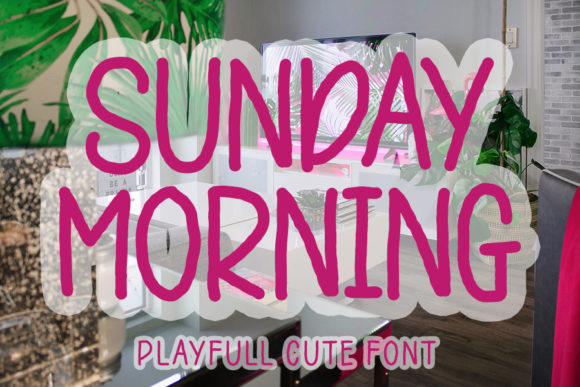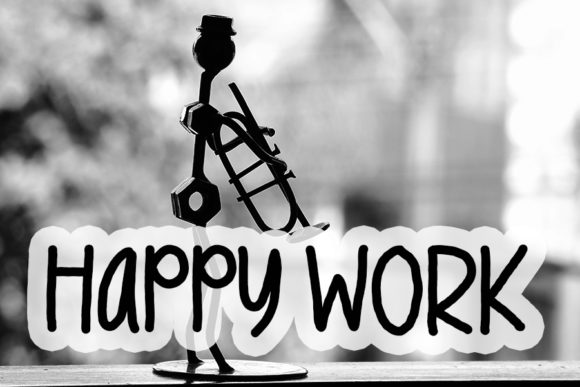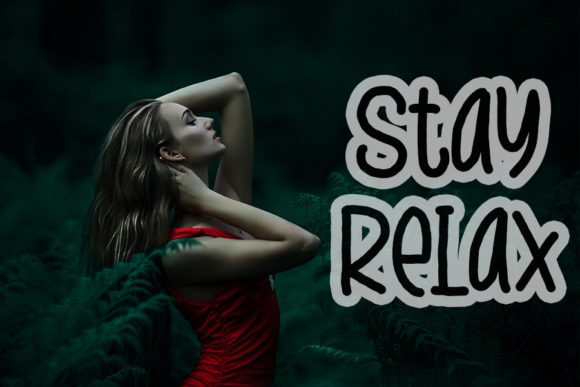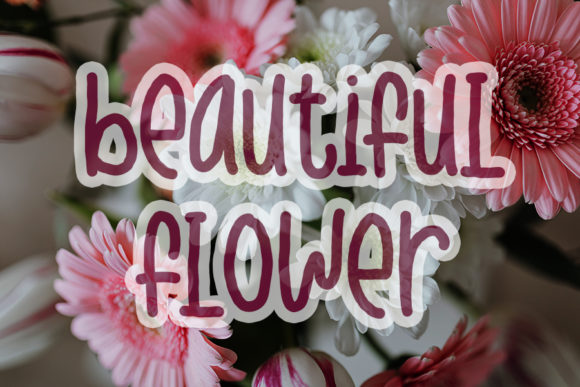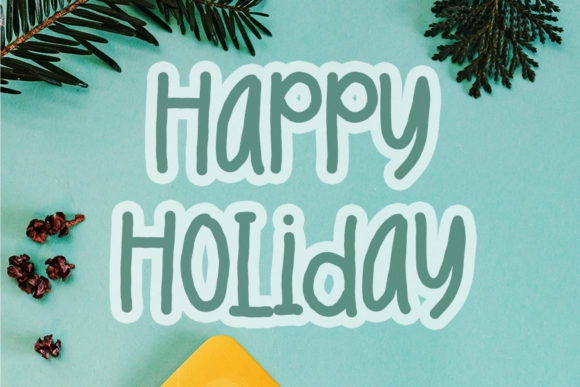
Sunday Morning Font
About Sunday Morning Font
Sunday Morning is a playful handwritten font, described by an elegant touch. Fall in love with its incredibly versatile style and use it to create spectacular designs!